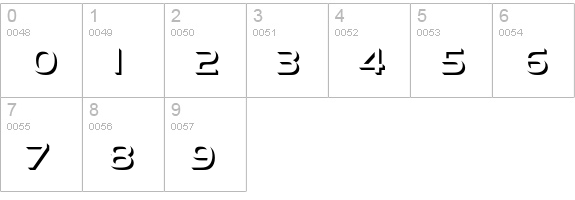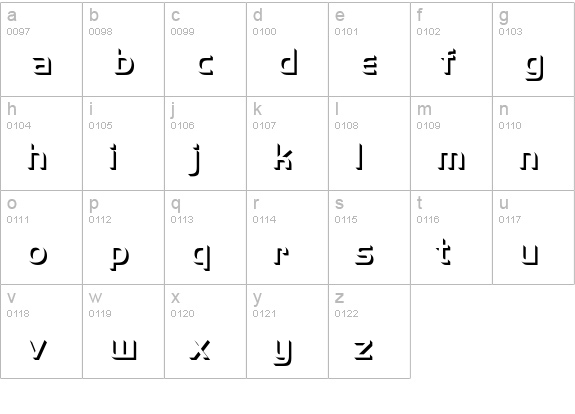
Handel Gothic Only Shadow D Medium Font Details
Handel Gothic Only Shadow D Medium is a balanced, medium-weight variant in the Handel typeface family \xE2\x80\x94 well suited to sub-headlines, navigation, and balanced editorial work.
Handel Gothic Only Shadow D Medium font is a visually striking and highly distinctive typeface that exudes a sense of modernity and sophistication. With its bold and dramatic shadow effect, this font commands attention and adds depth to any design project. The Handel Gothic Only Shadow D Medium font is perfect for creating eye-catching headlines, logos, posters, and other graphic designs that require a touch of uniqueness and elegance. Its clean and sleek lines combined with the shadow effect create a dynamic and impactful visual impact. This font is freely available to download at FontsMarket.com. Whether you are a professional designer or a casual enthusiast, you can now access this remarkable font without any cost. FontsMarket.com offers a wide range of fonts, and Handel Gothic Only Shadow D Medium font is just one of the many high-quality options available. By downloading this font, you gain the freedom to explore and experiment with your design ideas without any restrictions. Its versatility allows it to be used in various industries and projects, from branding and advertising to web design and print media. With its unique combination of style, clarity, and impact, Handel Gothic Only Shadow D Medium font is a must-have for anyone looking to make a lasting impression. So, why wait? Visit FontsMarket.com and get your hands on this remarkable font today, and let your creativity soar.